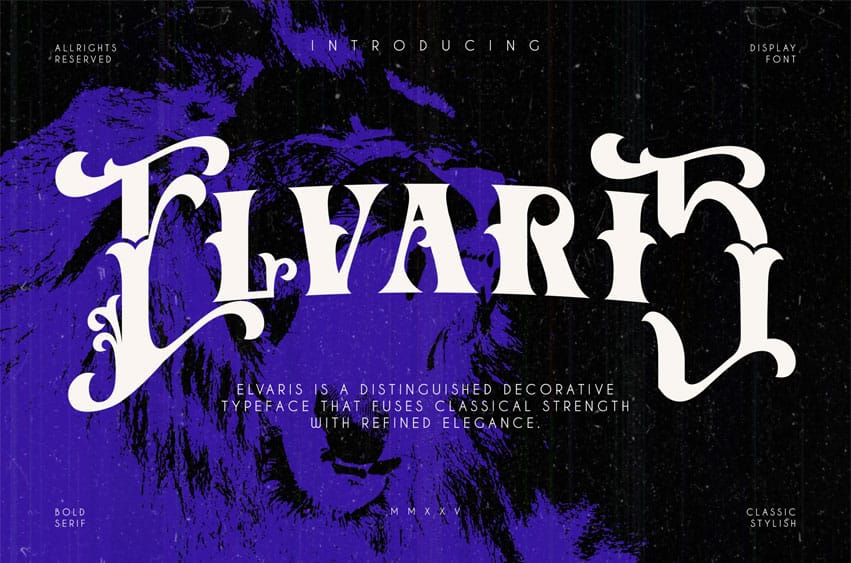
Elvaris Font is a distinguished decorative typeface that fuses classical strength with refined elegance. Its name evokes a sense of nobility and timelessness, perfectly capturing the font’s bold presence and sophisticated character.
Each letter is carefully crafted with balanced serifs, subtle ornamental touches, and strong visual structure, making Elvaris both commanding and graceful.